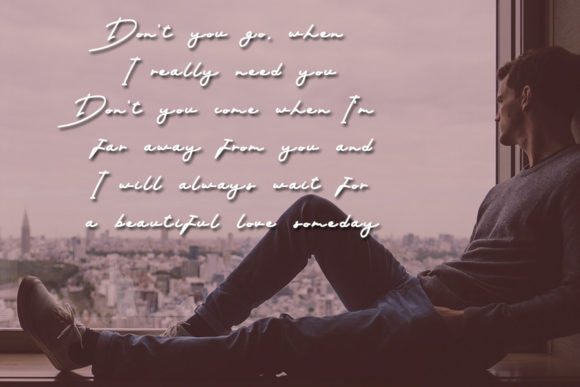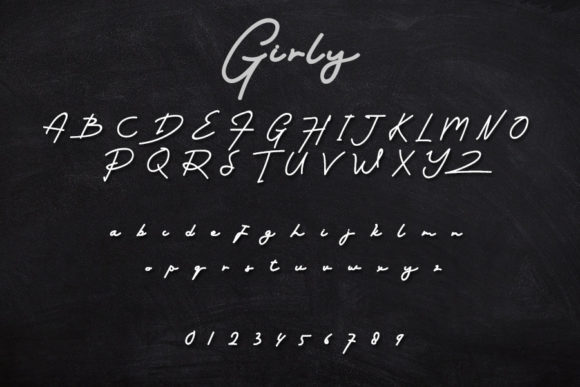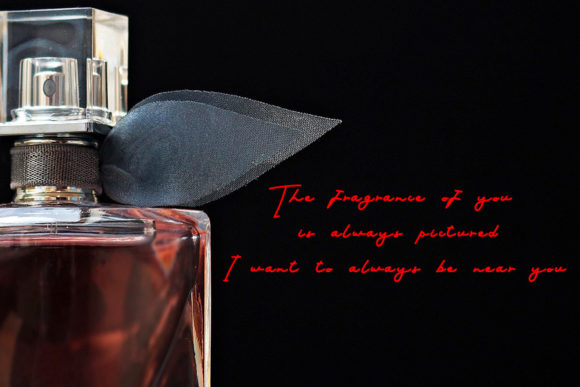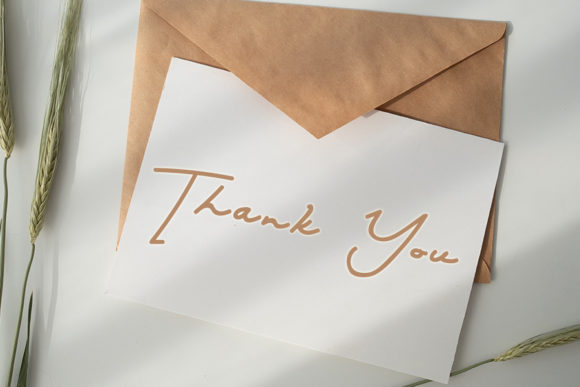
The Girly Font: A Beautiful and Adventurous Handwritten Delight
An Honest Review of Girly Font
- ✨ The Girly font is incredibly versatile and can be used for a wide range of design projects, from branding and packaging to social media graphics and more.
- ✅ The font has a unique and authentic feel that adds a touch of personality to any design.
- 💫 The handwritten style is elegant and sophisticated, making it perfect for designs that require a touch of whimsy and charm.
- 🎉 The font comes with a range of OpenType features, including glyphs and stylistic alternates, which allow for endless creative possibilities.
While the Girly font is an amazing addition to any design project, there are a few things to keep in mind. 🤔
- ⚠️ Some of the glyphs and special characters can be a bit finicky to access, especially for beginners.
- ⚠️ The font may not be suitable for very small text sizes, as some of the details can get lost.
The Designer Inspiration Behind Girly Font
The Girly font was designed with the intention of creating a beautiful and adventurous handwritten font that captures the spirit of creativity and freedom. The designer, who wishes to remain anonymous, was inspired by the world of art and literature, and wanted to create a font that would allow designers to add a touch of personality and whimsy to their designs.
Q: What is the Girly font best used for?
A: The Girly font is best used for designs that require a touch of adventure and authenticity, such as branding, packaging, and social media graphics.
Q: Is the Girly font suitable for body text?
A: While the Girly font can be used for body text, it’s best suited for headings and titles due to its decorative nature.